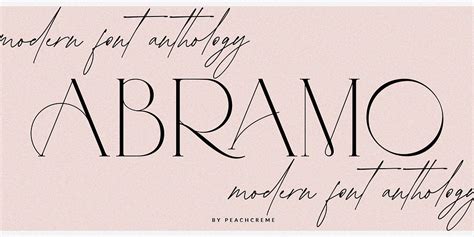
Abramo Serif Font. Abramo serif and abramo script. Web abramo is a set of two modern fonts:
Abramo serif and abramo script. Web with its timeless appeal and attention to detail, this typeface adds a touch of refinement to any design project. They blend together so well, that you can. They blend together so well, that you can create. Web abramo is a set of two modern fonts: Web abramo is a set of two modern fonts:
Web abramo is a set of two modern fonts: Web with its timeless appeal and attention to detail, this typeface adds a touch of refinement to any design project. Web abramo is a set of two modern fonts: Abramo serif and abramo script. Web abramo is a set of two modern fonts: They blend together so well, that you can. They blend together so well, that you can create.